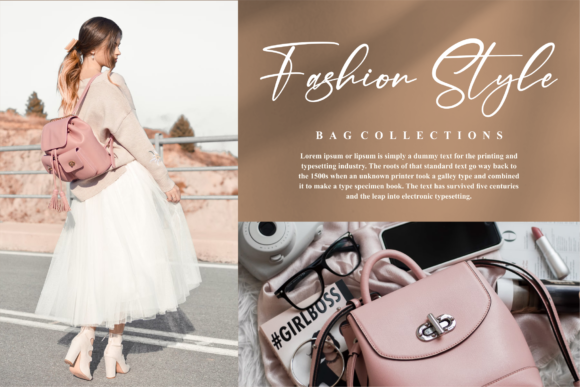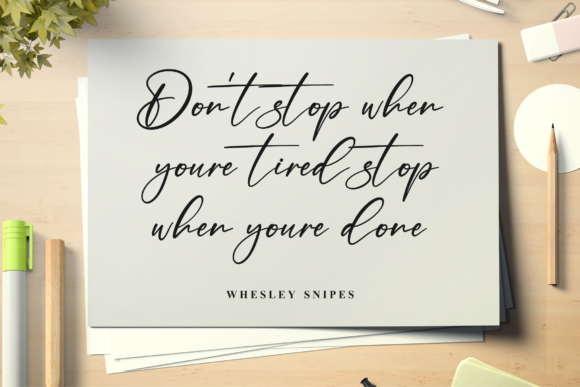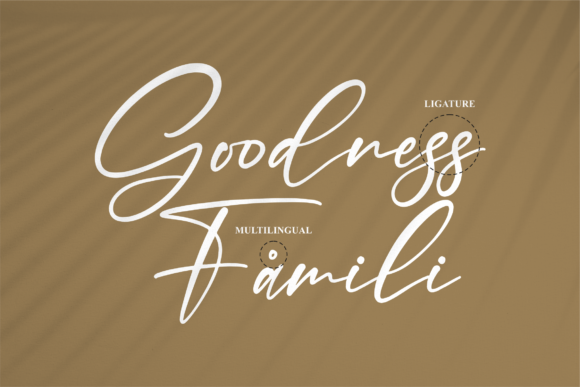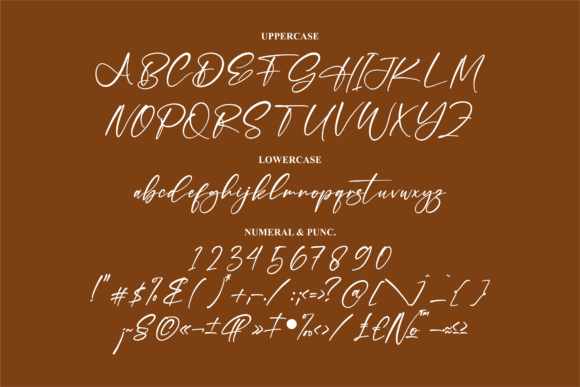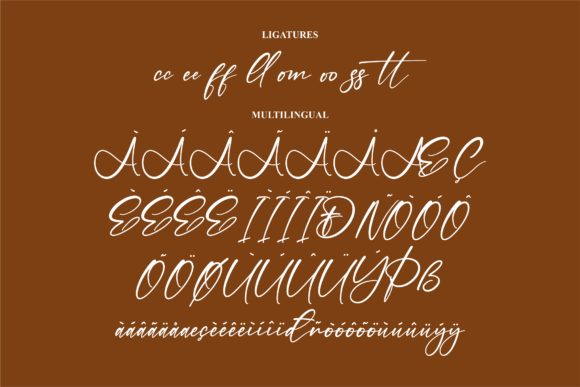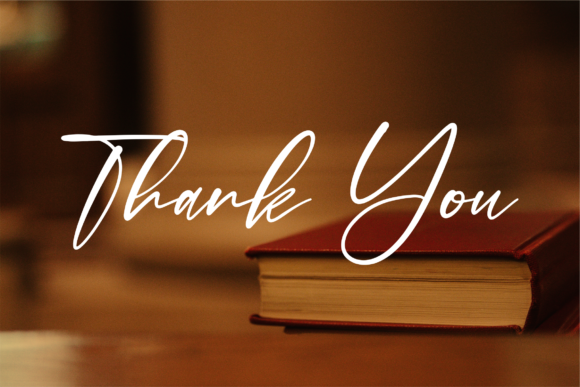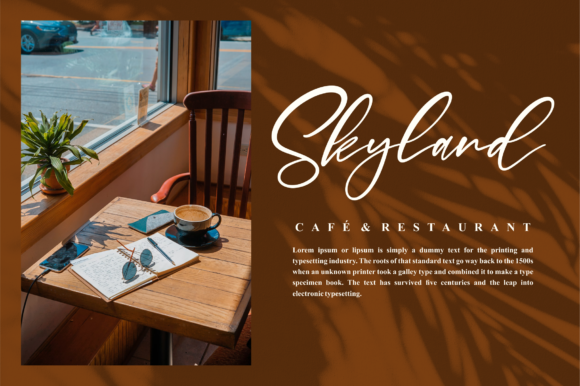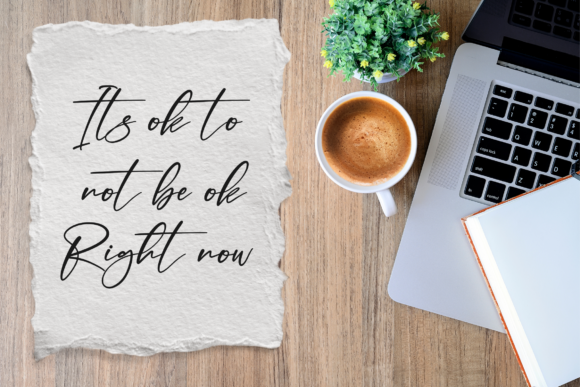
Daylight Font
About Daylight Font
Daylight is a romantic and sweet calligraphy typeface with characters that dance along the baseline. It will add a luxury spark to any design project that you wish to create! The only limit is your imagination.